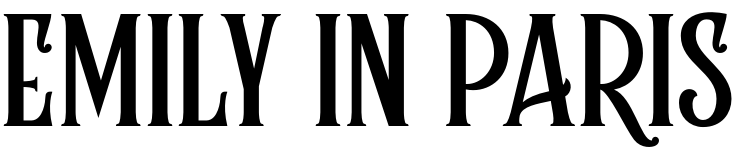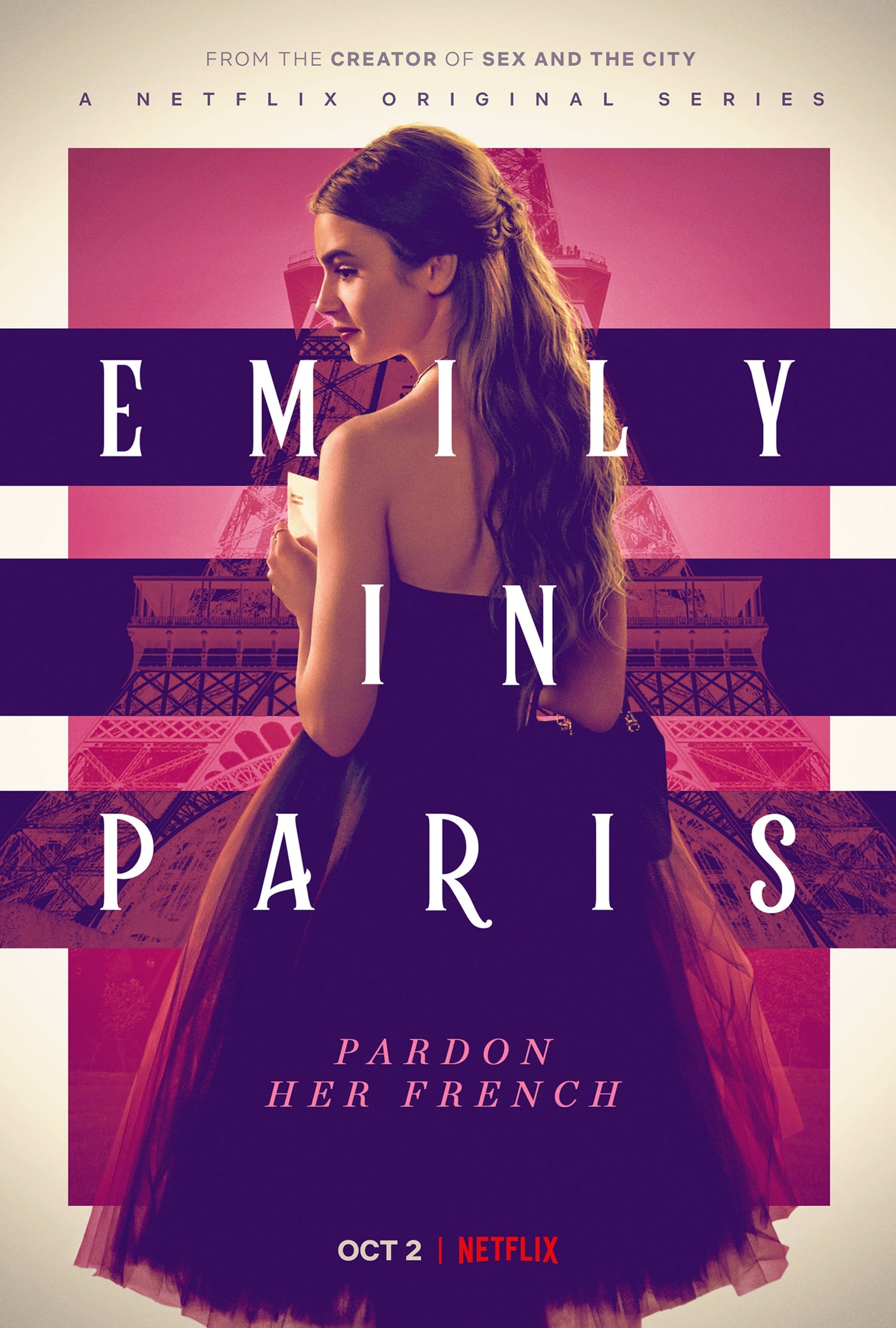
Emily in Paris Font
The TV show's title, Emily in Paris, employs a slightly altered version of a retro serif called Rumble Brave by Alit Design. To view more information about the font family click here. The simple serif version is available for free download in the fonts Used Section for personal use only.